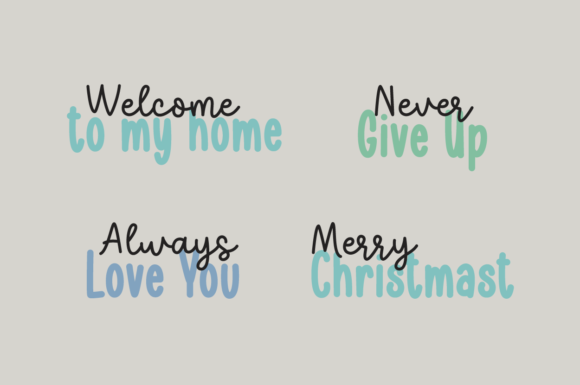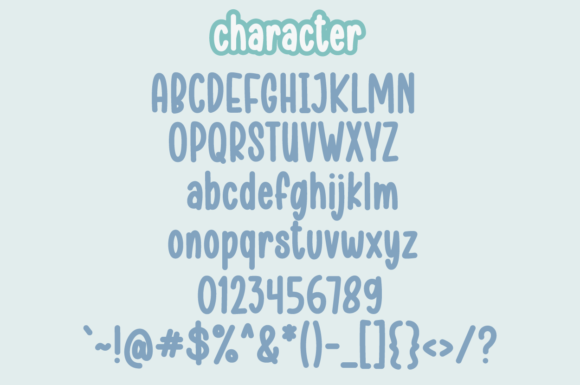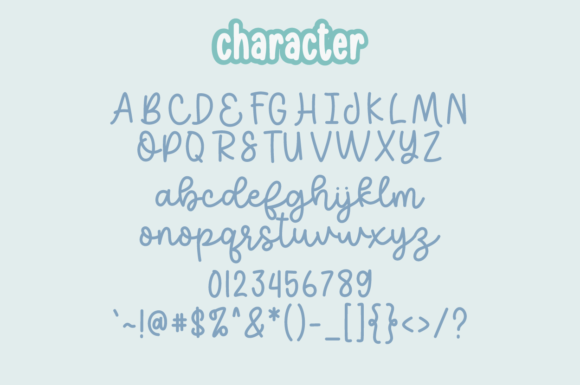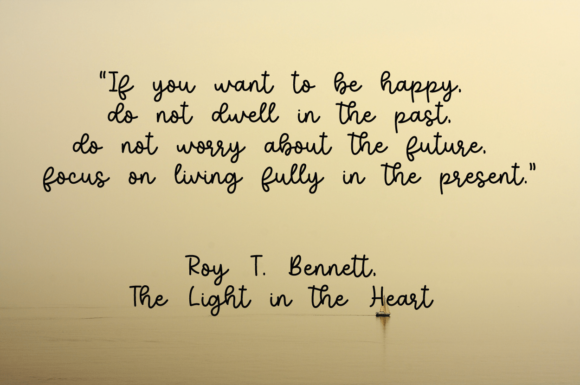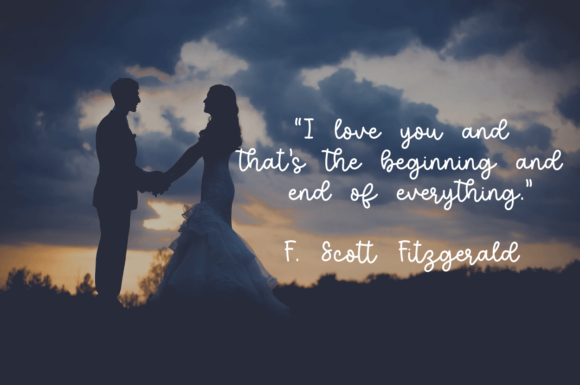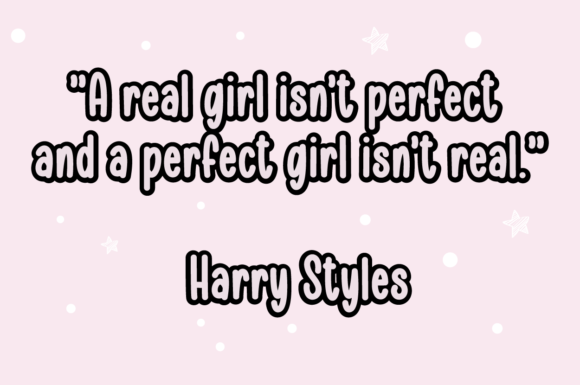
The Perfect Blend of Whimsy and Elegance: Introducing the Boho Sunshine Font
As designers, we’ve all been there – staring at a blank canvas, waiting for that spark of creativity to ignite. It’s moments like these that remind us why we love our job. For me, it’s the thrill of bringing a concept to life, of infusing it with personality and emotion. And that’s exactly what the Boho Sunshine Font does – it adds a touch of warmth and character to any design.
This versatile font duo, comprising a handwritten and sans serif style, is the perfect tool for designers looking to add an artistic flair to their work. Whether you’re crafting a heartfelt thank you card or a bold logo, the Boho Sunshine Font is sure to elevate your design game. Its friendly feel and effortless charm make it an invaluable addition to any creative project.
Boho Sunshine Font Key Features
- Font Family: Boho Sunshine, with a total of 6 styles (Thin, Light, Regular, Medium, Bold, Black)
- Unique Characteristics: Hand-drawn design with a mix of modern and vintage elements, giving it a unique, eclectic feel
Boho Sunshine Font Review
Overall, I’m really enjoying working with the Boho Sunshine Font. The font’s unique blend of bohemian and sun-kissed vibes gives it a lot of character. ✨ It’s perfect for creating eye-catching and Instagram-worthy designs. The font’s playful feel makes it ideal for branding, packaging, and social media graphics.
Here are some things that work well with the Boho Sunshine Font:
- Unique and trendy design: The font’s bohemian style is both stylish and on-trend.
- Easy to read: Despite its playful feel, the font is still easy to read and understand.
- Great for branding: The font’s distinctive look makes it perfect for creating memorable brand identities.
- Works well with illustrations: The font pairs beautifully with hand-drawn illustrations and graphics.
- Limited font weights: The font comes in a limited range of weights, which may not be ideal for certain design applications.
- Not suitable for formal designs: The font’s playful feel may not be suitable for formal or professional designs.
- May require adjustments: Depending on the design application, the font may require adjustments to ensure it’s displayed correctly.
Overall, I think the Boho Sunshine Font is a great addition to any designer’s toolkit. With its unique style and playful feel, it’s perfect for creating eye-catching and memorable designs. Just be aware of its limitations and use it accordingly.
Use the Boho Sunshine Font to add a touch of bohemian charm to your designs. Pair it with bold colors and playful graphics to create a unique and eye-catching look.
Experiment with different font sizes and styles to create visual interest and hierarchy in your designs.
The Boho Sunshine Font is perfect for:
- Travel and adventure branding
Great Vibes is a modern, handwritten font that conveys a sense of playfulness and freedom. It is ideal for use in headings, quotes, and titles where a touch of whimsy is desired. Great Vibes is a more structured alternative to Boho Sunshine, with a consistent line width and fluid connections between letters.
Lato is a clean, sans-serif font that is perfect for use in body text, headings, and titles. It is highly legible and works well in both digital and print media. While Lato lacks the whimsical feel of Boho Sunshine, it is a more versatile and professional alternative that is suitable for a wide range of applications.